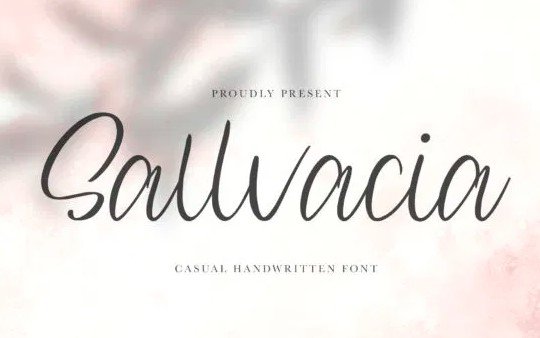
Introducing the stunning decorative typeface perfect for enhancing both your commercial and personal projects. Meet Sallvacia Casual Handwritten Font, a handwritten script ideal for crafting logos, frames, and much more.
The font is available in a brush typeface that can fairly be utilized for your ongoing and upcoming projects. It can give you the perfect rating.
This is an outstanding, exceptional typeface that is great to use with the most elegant fashional typeface parker font. It contains extreme and extra ordinary features of graphics.
This is an outstanding, and pleasant typeface that is great to use with caviar dreams font usable in projects that required some handy look and natural feeling. You can design the projects more attractive just with the typeface.
| Name | Sallvacia Casual Handwritten Font |
| Style | Handwritten |
| Designer | Creative Fabrica |
What Type of Font Is Sallvacia Casual Handwritten?
The Sallvacia Casual Handwritten Font is the famous and amazing typeface which was product of the combination efforts by Creative Fabrica.